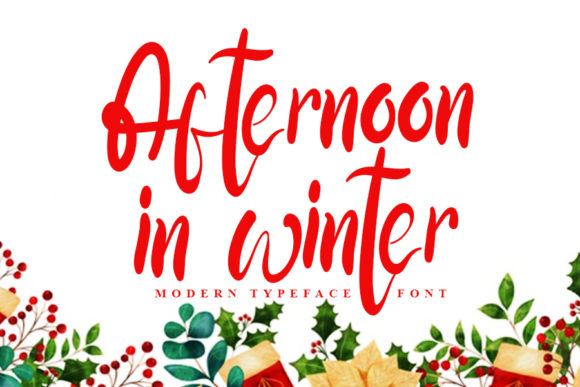
The Dreamy Afternoon in Winter Font: A Designer’s Delight
I’ll never forget the afternoon I stumbled upon the Afternoon in Winter font. I was working on a project for a client who wanted a whimsical, yet bold and eye-catching design. As I scrolled through my font library, I felt like I was searching for a needle in a haystack. That’s when I saw it – Afternoon in Winter, with its beautiful flowing lines and bold letters. It was like a dream come true! ✨
So, what makes Afternoon in Winter so special? Let’s dive into the good stuff and, of course, a few quirks I’ve discovered. 😊
• ✨ Beautifully crafted script letters with a perfect balance of elegance and playfulness
• ✅ Highly versatile: perfect for titles, headings, and even body text
• 💫 Stunning OpenType features, including glyphs and stylistic alternates
• 🎨 Endless possibilities for creative experimentation and customization
• 🤔 Some users might find the font a bit too bold for certain design applications
• ⚠️ Limited availability of certain characters, such as ligatures
The Designer Inspiration Behind Afternoon in Winter
While the true story behind Afternoon in Winter remains a mystery, it’s easy to imagine that the designer was inspired by the magic of a winter afternoon. Perhaps they were sipping hot chocolate by the window, watching the snowflakes gently fall outside. Whatever the inspiration, the result is a font that’s both beautiful and versatile.
Q: What makes Afternoon in Winter so special?
A: Afternoon in Winter is a unique script font with beautiful flowing lines and bold letters. Its versatility and stunning OpenType features make it perfect for a wide range of design applications.